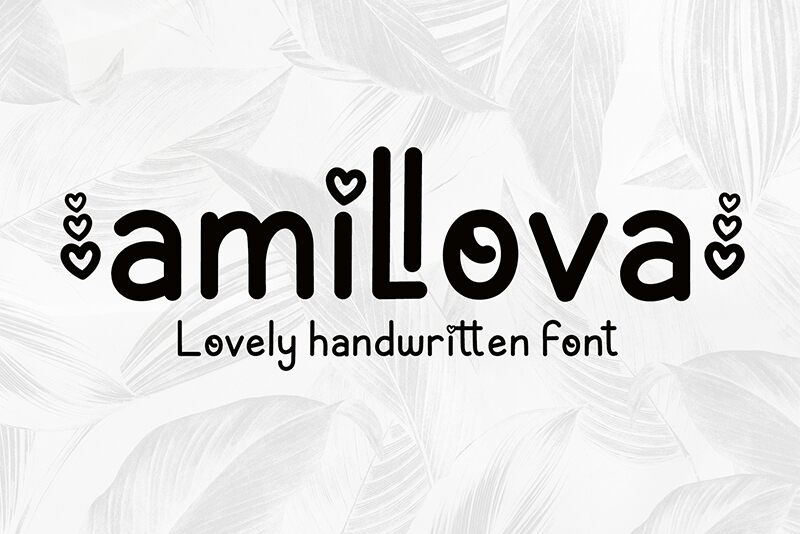
Amillova
Amillova, the charming handwritten font by AEN Creative Studio 2022, captures the essence of all things lovely and romantic. With its semi-light weight and adorable Valentine style, this font is perfect for creating enchanting designs that are sure to capture hearts. The elegant curves and playful loops lend themselves beautifully to wedding invitations, love letters, greeting cards or any project that needs a touch of whimsy. Amillova is ideal for conveying a sense of warmth and tenderness in branding materials or social media graphics too. Let Amillova bring your creative visions to life with its sweet sophistication.